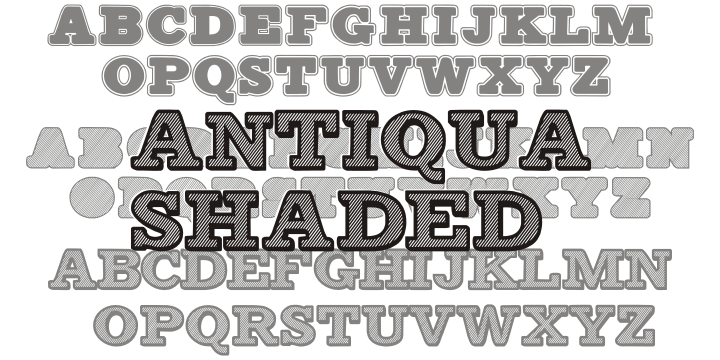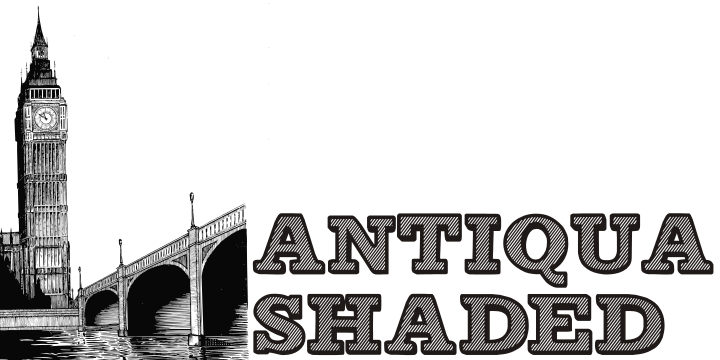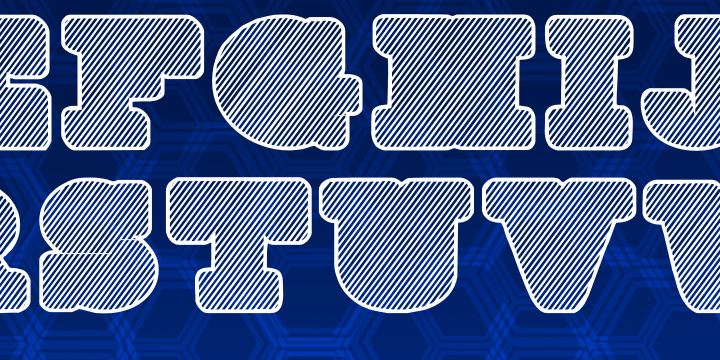
Antiqua Shaded
Designed by Paulo W, Antiqua Shaded is a display serif font family. This typeface has five styles and was published by Intellecta Design.
a well crafted font inspired in classic wood type fonts heritage. FIE FONTS IN THE FAMILY